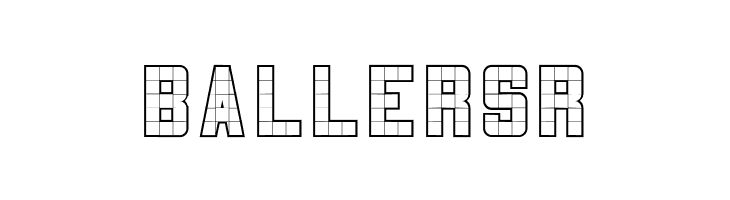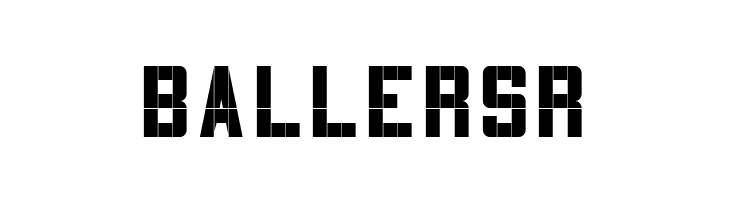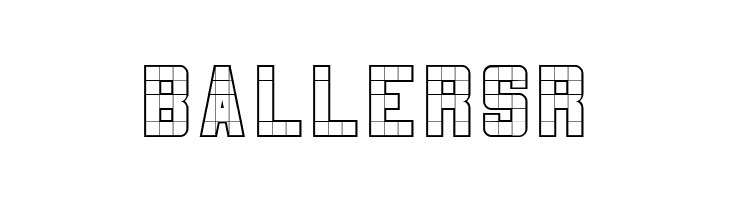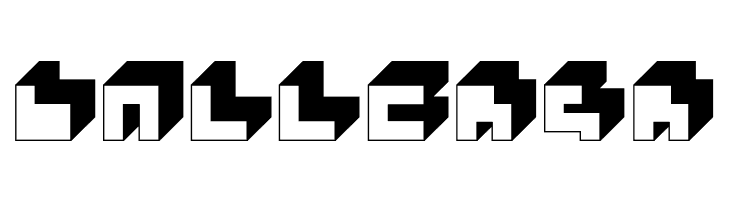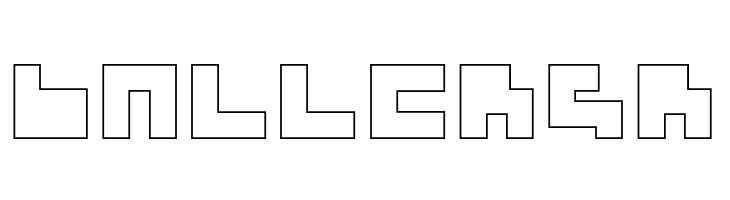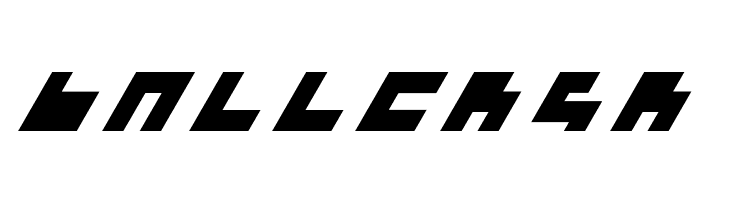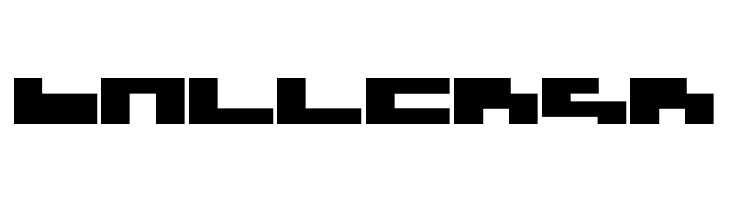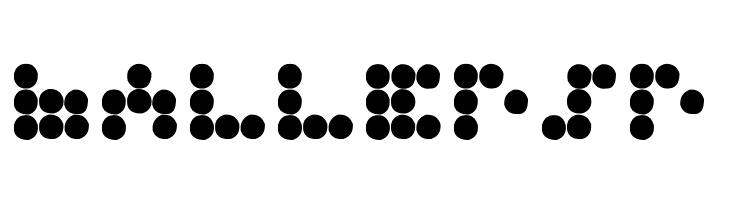
• 3theHardwayRMX-RegularDEMO
A bold, distressed font with a gritty, urban aesthetic.
• 3X3
A dot matrix style font with a modern, digital appearance.
• 3x3 dots
A modern, dot-based font with a playful and unique style.
• 3x3 dots Bold
A modern, pixelated font composed of 3x3 dot grids, offering a playful and tech-inspired aesthetic.
• 3x3 dots Outline
A modern, tech-inspired font using a 3x3 dot matrix outline.
• 3x3 Font for Nerds
A pixelated, retro-style font with a blocky, geometric design.
• 3x3 Mono
A pixelated, monospaced font with a retro digital aesthetic.
• 3x3-block
A bold, 3D geometric block font with a modern, futuristic style.
• 3x3-flat
A pixelated, geometric font with a retro digital aesthetic.
• 3x3-italic
A bold, geometric, italic font with a futuristic and dynamic style.
• 3x3-outline
A geometric, pixelated outline font with a retro digital aesthetic.
• 3x3-regular
A pixelated, geometric font with a retro digital style.
• 3x5
A bold, geometric font with a pixelated, digital appearance.
• 3x5
A bold, geometric font with a digital, pixelated design.
• 3x5 Outline
A geometric, grid-based outline font with a modern and technical look.
• 3x5-Outline
A grid-based outline font with a geometric and modern style.
• 3x7 High
A pixelated, retro-style font with a blocky, geometric design.
• 3x7 Low
A pixelated, retro-style font with a uniform, grid-like structure.
• 3x7 Normal
A pixelated, blocky font with a retro digital aesthetic.
• 4 DOGS
A playful, bone-themed font with pirate symbols, perfect for adventurous designs.
• 4 DuVall DNA